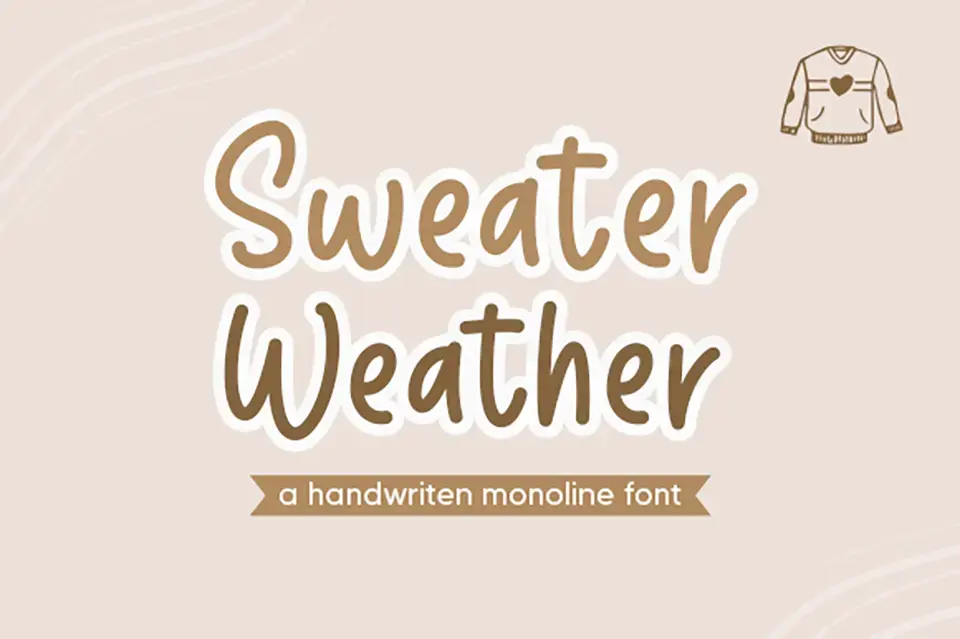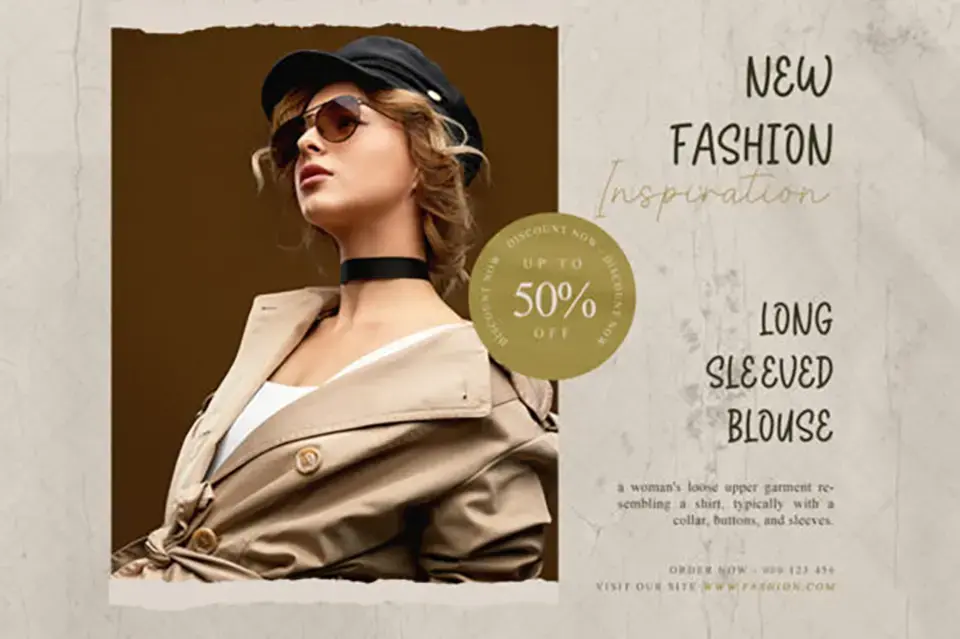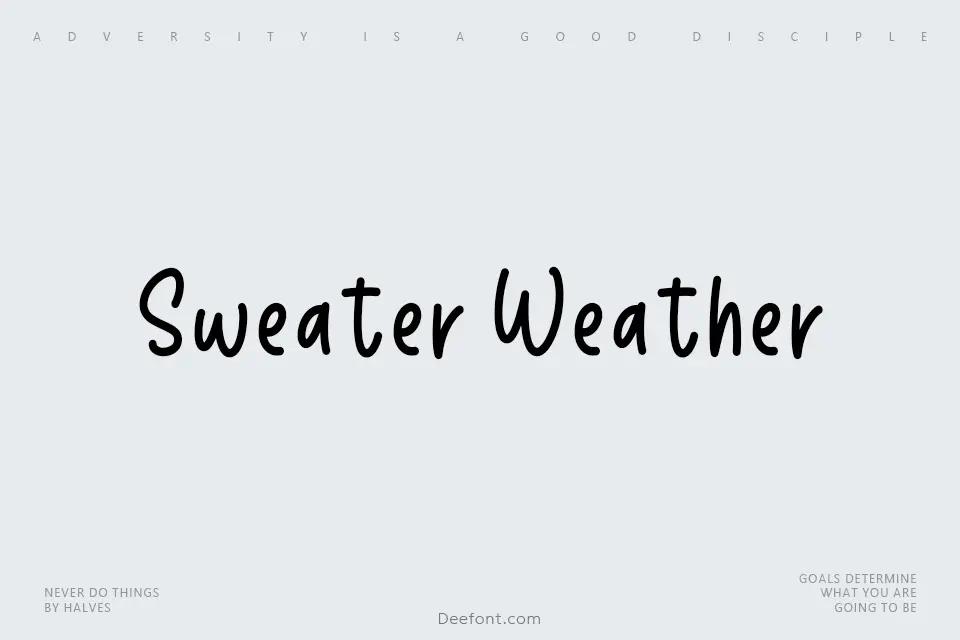
Sweater Weather Font
Sweater Weather is a warm and inviting handwritten script font that captures the essence of casual elegance. With its organic brush strokes and authentic hand-drawn quality, this typeface exudes comfort and approachability. Ideal for autumn-themed designs, holiday campaigns, greeting cards, poster design, logo creation, and festive marketing materials. The font's natural curves and easy-to-read letterforms make it perfect for display purposes on packaging, social media graphics, and creative branding projects.